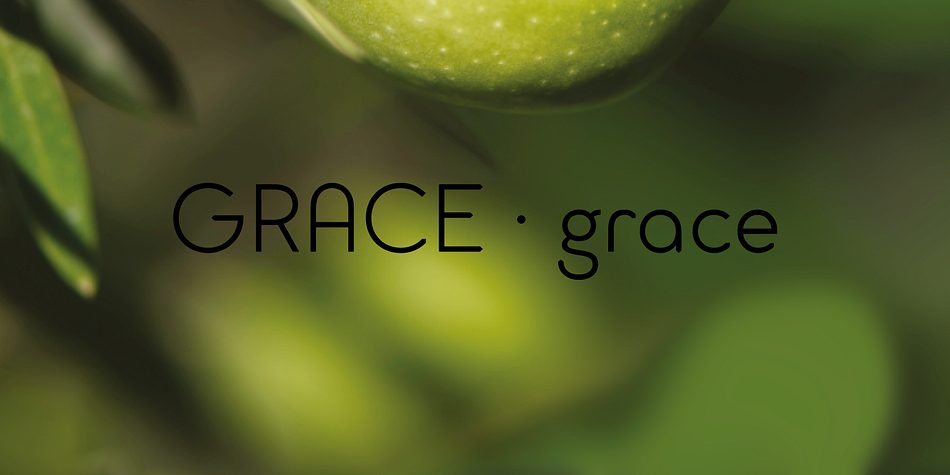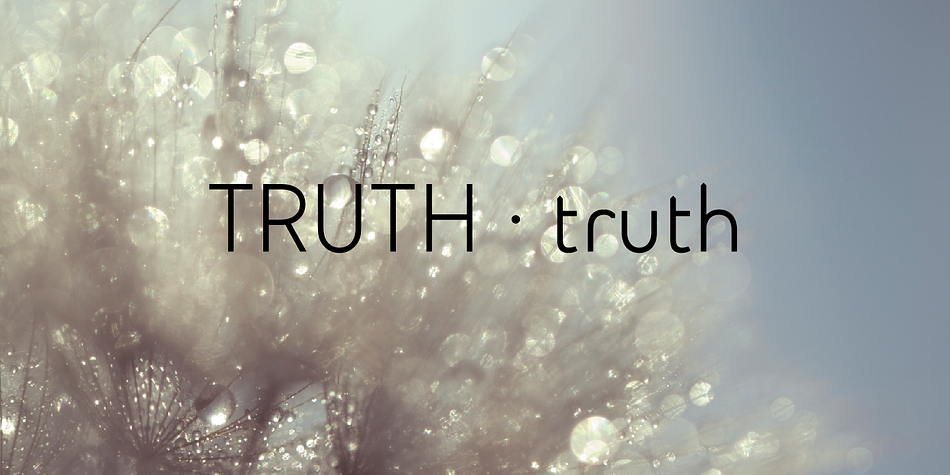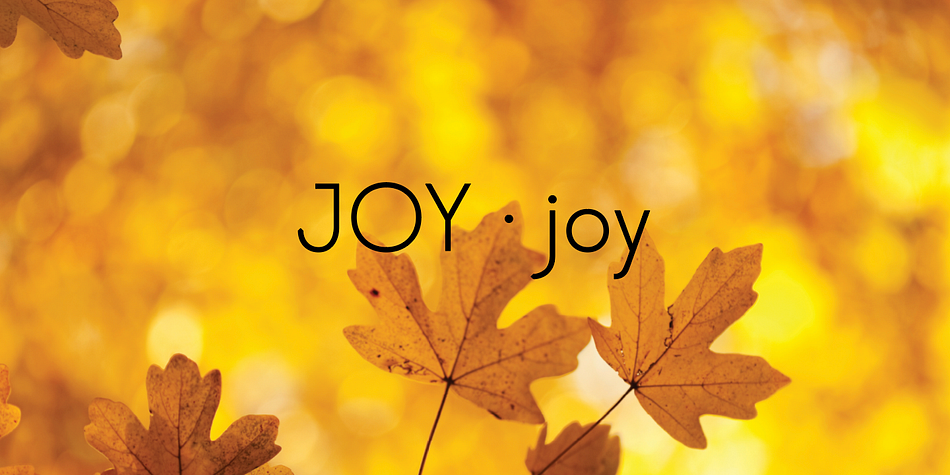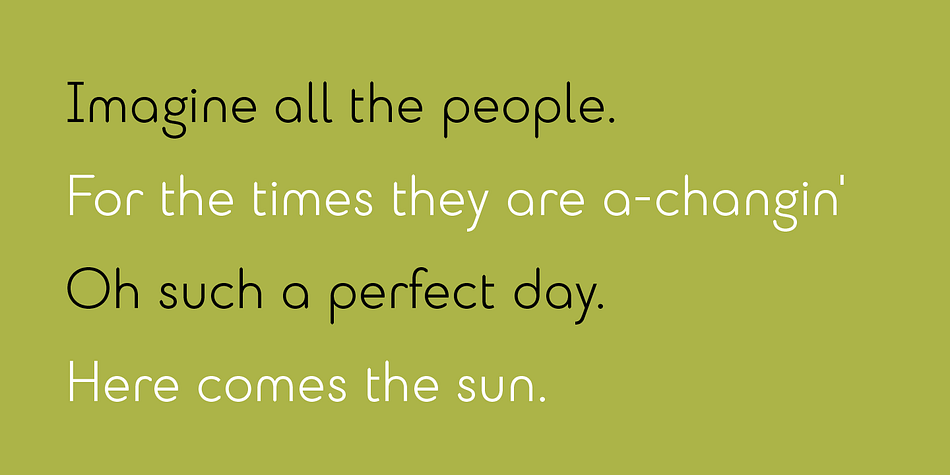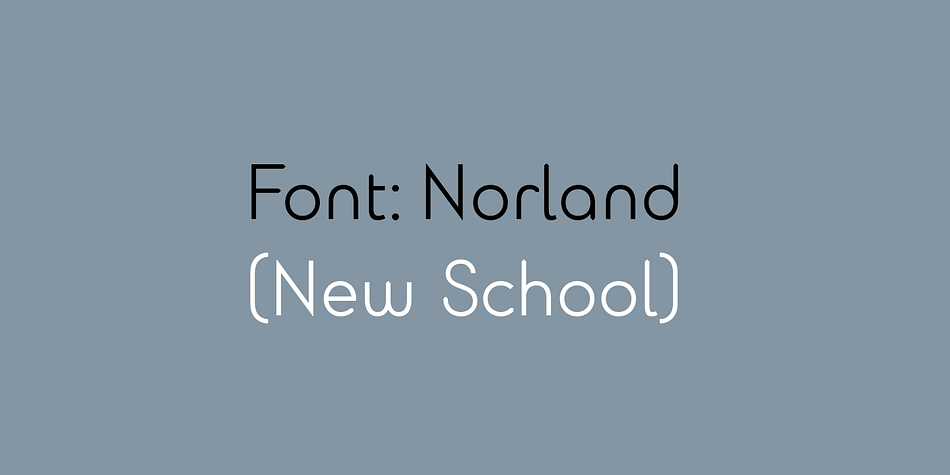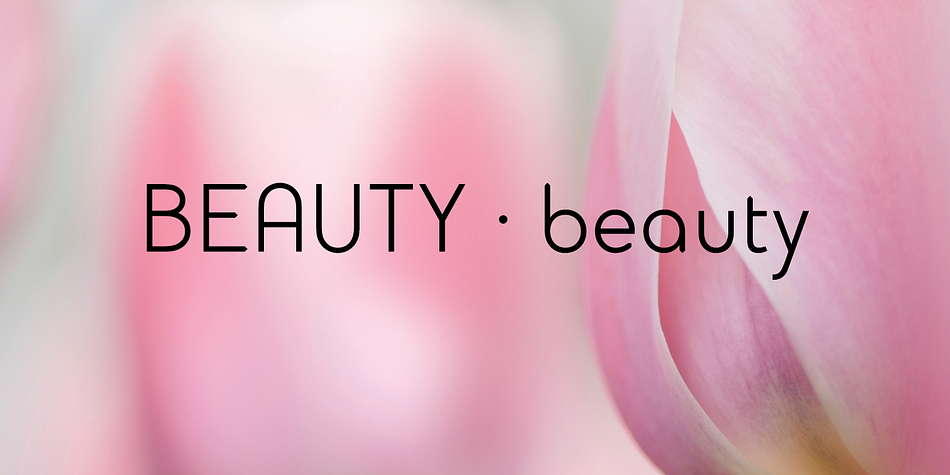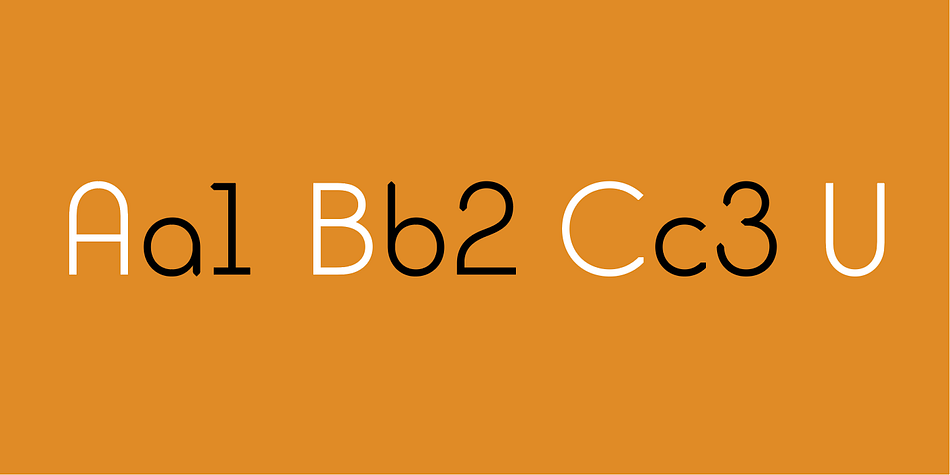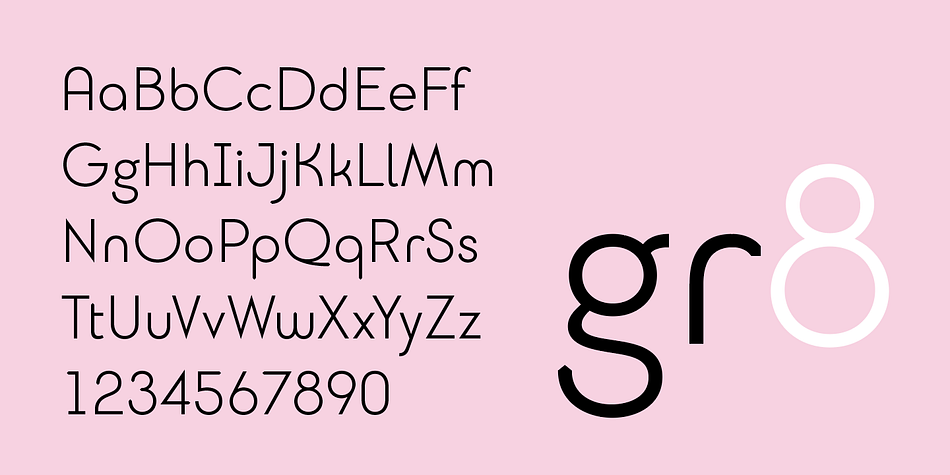
Norland is a sans serif font published by In-Light.
Designed by Mani Norland as a personal project in 2002 when he was working at Wolff Olins this font took 15 years to come to fruition! After leaving the design business in 2005 to run The School of Health www.schoolofhealth.com Mani finally found time to complete the font in 2016.
Mani wanted to create a font with: trust, beauty, grace and joy as its guiding principles. Norland is an elegant san serif font. A simple paired-back typeface with geometric curves and symmetry that is available in just one weight - you need no more and no less (that is all Mani had time to design!). This font works well for headlines in all caps or lower case and as body copy with generous leading. Enjoy!